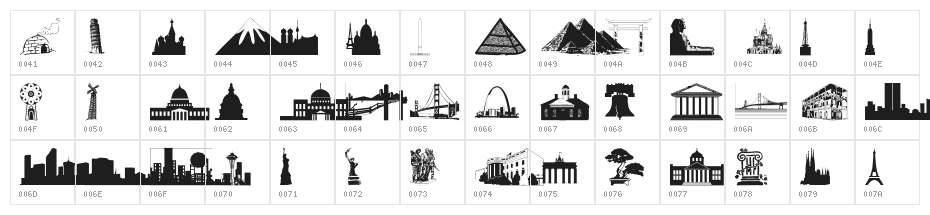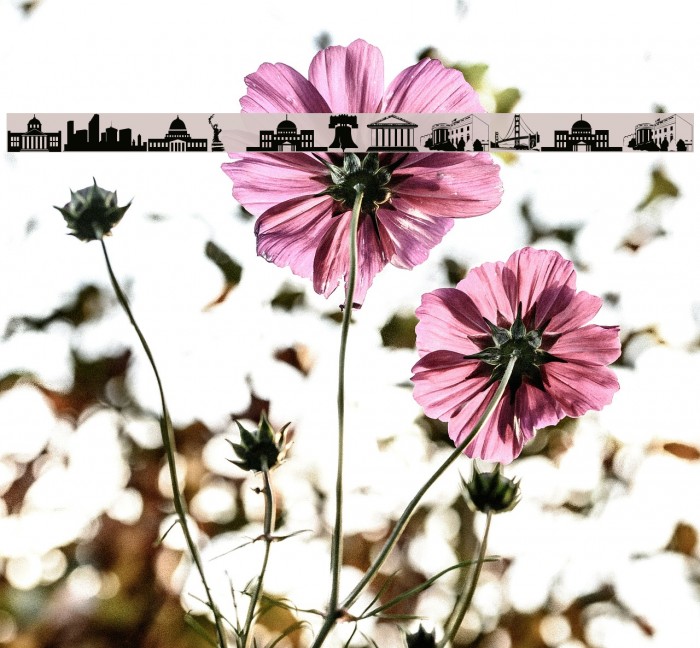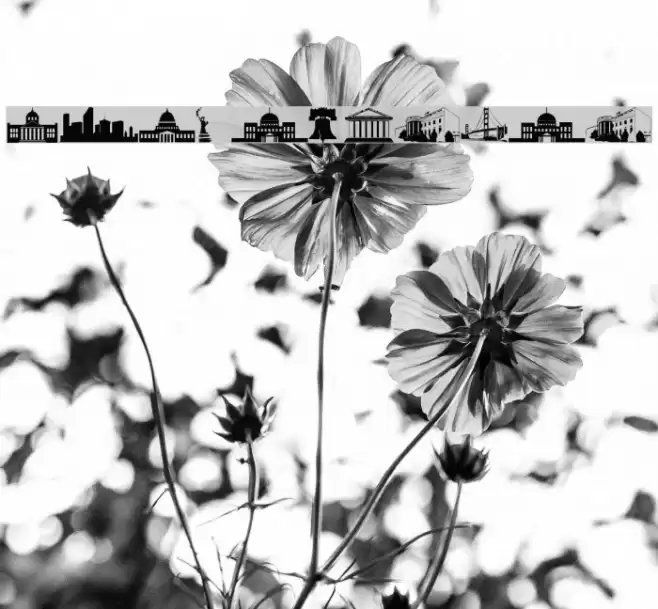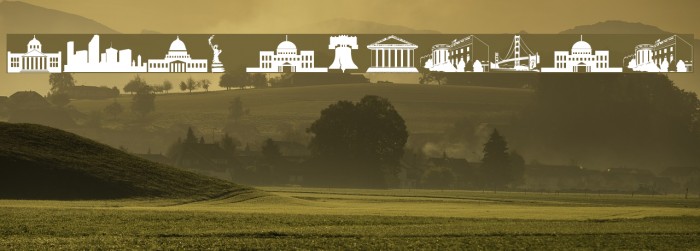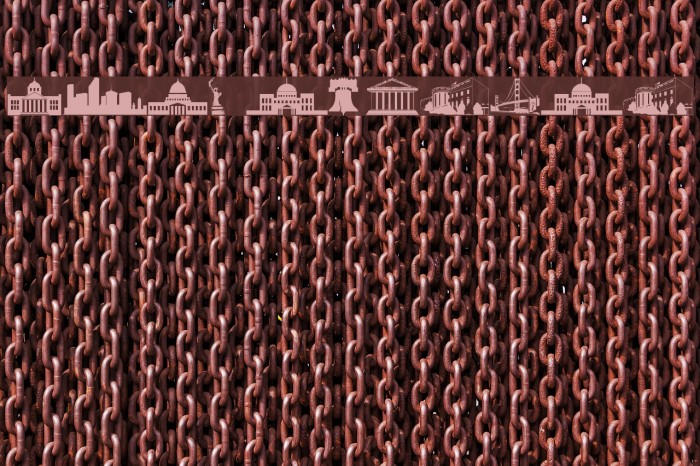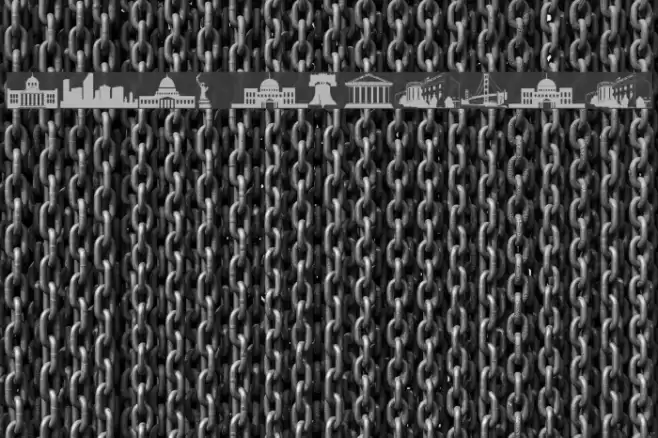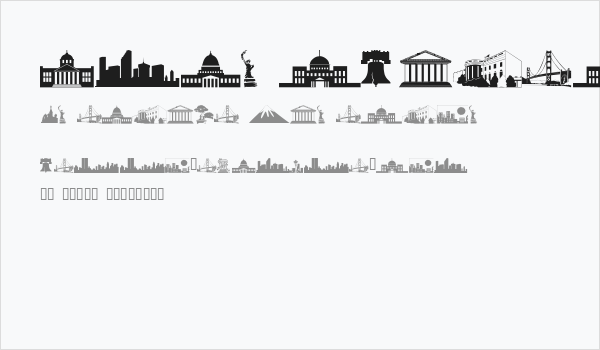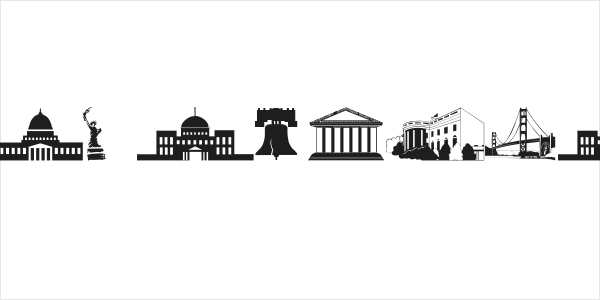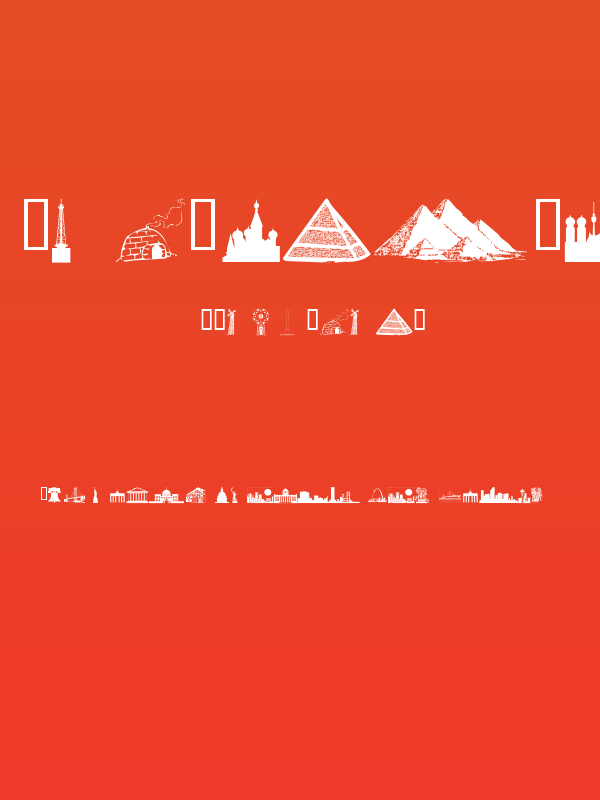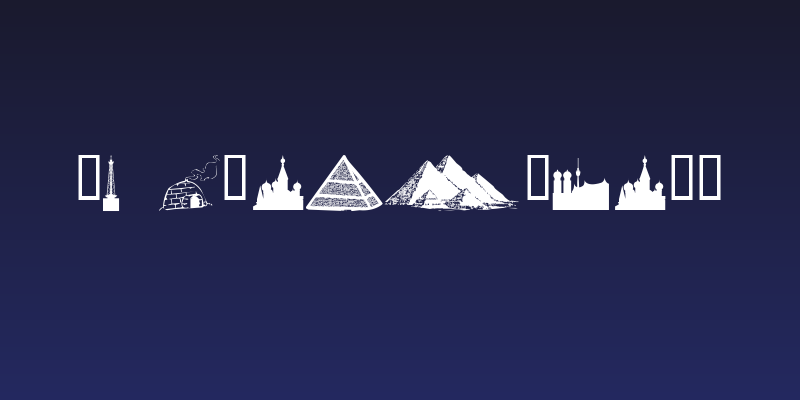
wmarchitect1 Font
wmarchitect1 Description
A decorative font featuring detailed architectural and cityscape silhouettes as glyphs, representing famous landmarks and skylines from around the world. Each character is replaced by a unique building or structure, making it highly illustrative and thematic.
| Overall Style | Decorative, Thematic, Illustrative |
| Use Case | Logos, Posters, Themed headlines, Educational graphics |
| Proposed Projects | Travel posters, educational materials, event invitations, themed branding, city guides, tourism campaigns. |